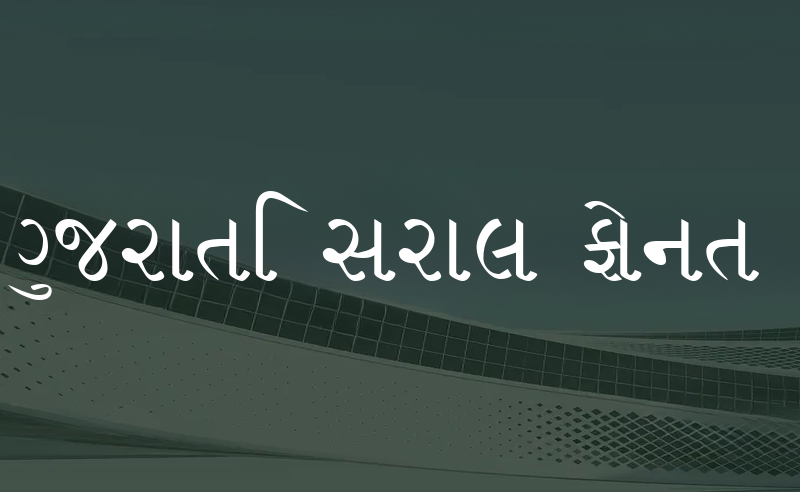
About Gujrati Saral Font
Gujarati Saral Font is a foundational digital typeface for the Gujarati script, created to provide exceptional clarity and readability on early computer screens and dot-matrix printers. Its design is characteristically simple and monolinear, with open shapes and minimal contrast, making it highly functional for textbooks, government documents, and basic typesetting. For many, it was the first digital Gujarati font they encountered, establishing a standard for on-screen legibility. While newer fonts offer more stylistic variety, Saral 1 remains a trusted and widely available choice for functional, no-frills text where straightforward communication is paramount.